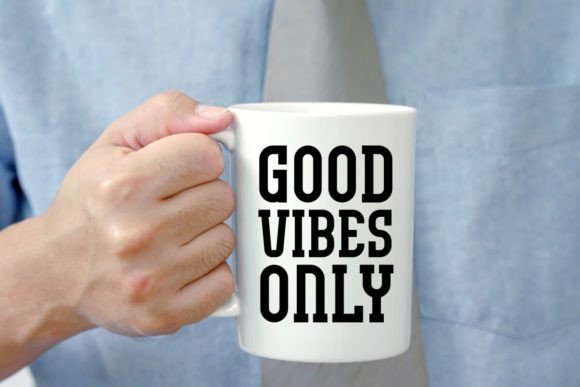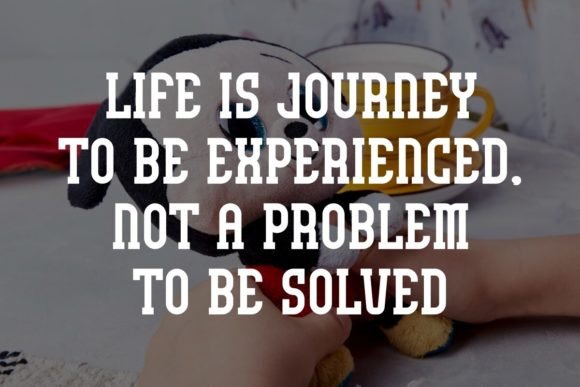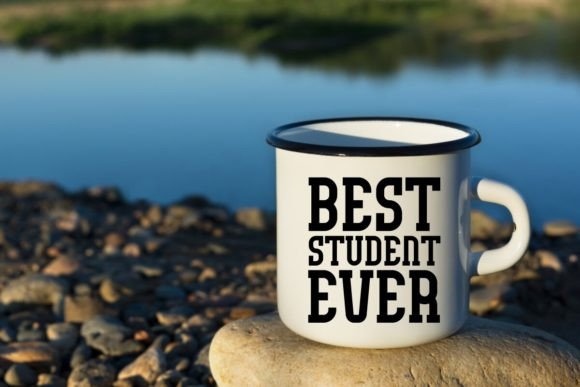
Introduction to Disney School Font Font
Fonts play a crucial role in design, and the Disney School Font font is a typeface that brings both character and versatility to any project. Whether you’re working on a branding project, a website, or a print design, the Disney School Font font offers a unique style that can elevate your work.
Disney School is a bold and vintage slab serif font that is both clean and elegant.
This font brings a classic yet modern touch to your creative projects Perfect for posters, inspirational quotes, engaging backgrounds, sports apparel, stylish t-shirts, mugs, trendy tote bags and caps.
Key Features of Disney School Font Font
Why Choose Disney School Font Font?
The Disney School Font font is more than just a typeface – it’s a design tool that helps you communicate your message with style and clarity. Its unique character set and versatile design make it suitable for a wide range of applications, from elegant invitations to bold headlines.
With its carefully crafted letterforms and balanced proportions, the Disney School Font font ensures readability and visual appeal across all mediums.
What makes Disney School Font font special?
The Disney School Font font stands out with its unique design, exceptional readability, and versatility across various design applications.